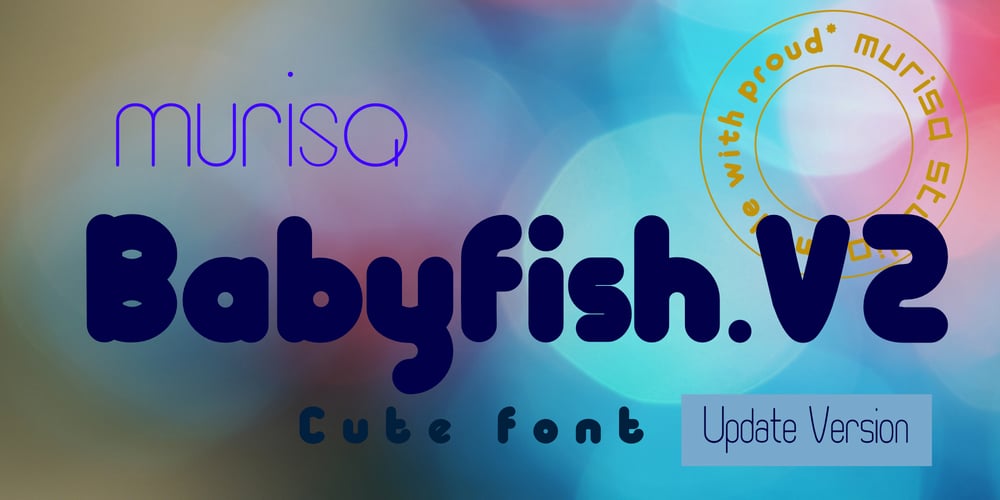
Murisa BabyFish
Murisa BabyFish font
Murisa BabyFish Font Family was designed by Lili Sadili and published by Murisa Studio. Murisa BabyFish contains 2 styles and family package options. Murisa BabyFish is our next font in this year. This font is inspired by the joy of children playing. Their joy is reflected in the creation of this font. Cheerful, joyful and colorful, are the strengths of this font. This font is perfect for use in your products that are targeting children and teenagers. Babyfish will lead your product to success. Get it right now.